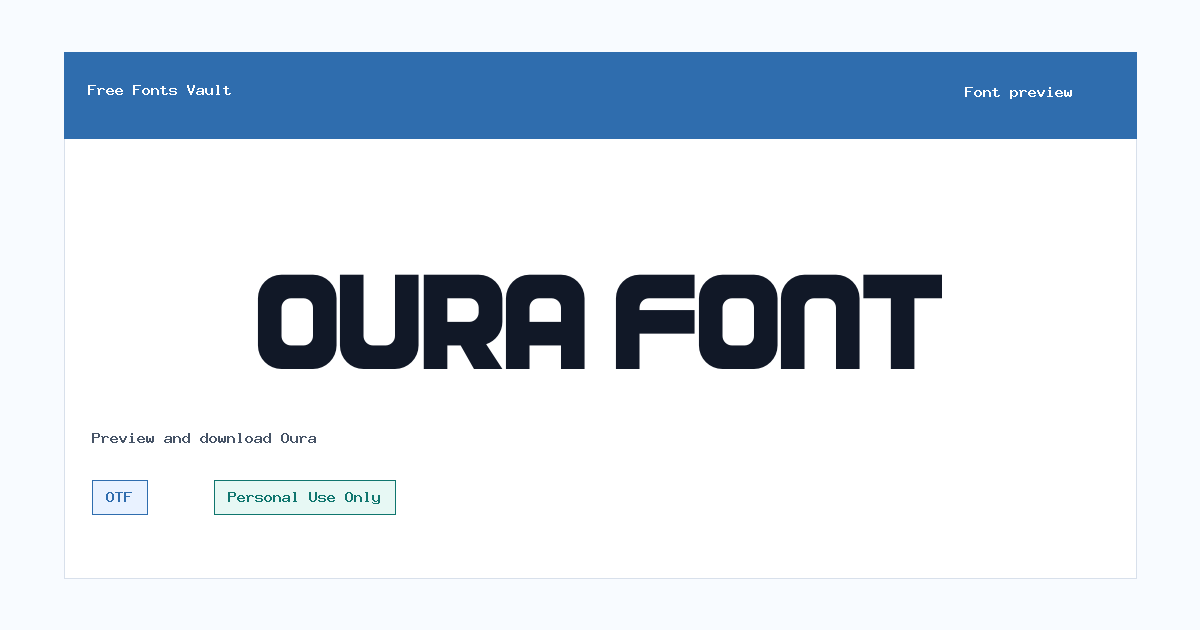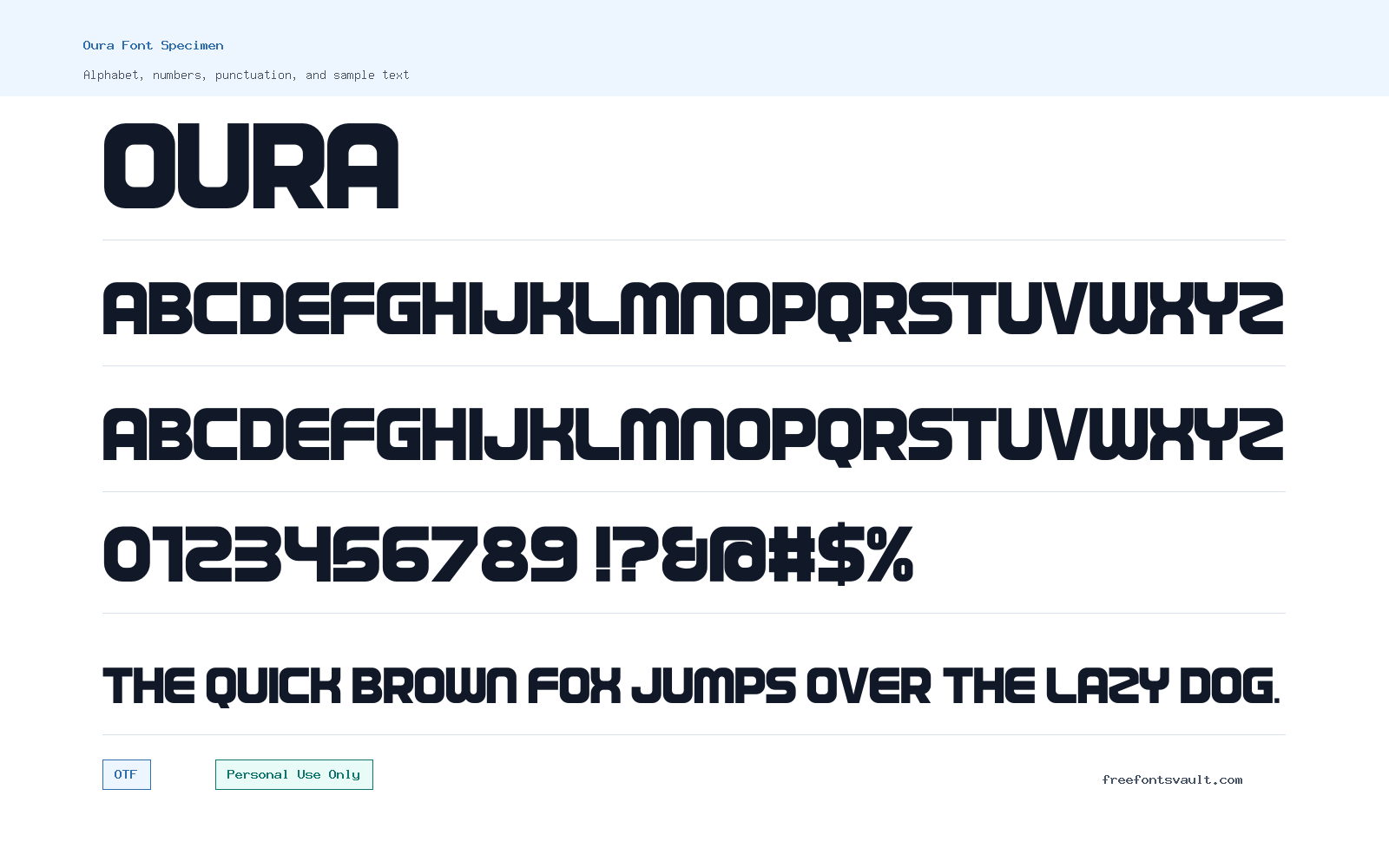
Oura
• Designer Lovian JK
• Foundry Funtype Co.
Oura is a sans serif font with a clean regular style, suitable for visitors who want to test a simple modern-looking typeface before downloading it.
About Oura Font
Oura comes as a regular-weight OTF font file. Its sans serif structure makes it a practical choice for short headings, name displays, poster text, social graphics, and other places where a clean letterform can stand out without extra decoration. Because only one regular style is listed, it is best treated as a focused display or supporting font rather than a full typography system with many weights.
Use the preview tool to test the exact words you plan to design with, especially if your project needs numbers, punctuation, uppercase styling, or longer lines of text. A single regular weight can work well for titles and short labels, but it may feel limited for body copy, dense paragraphs, app interfaces, or brand systems that need bold, italic, and multiple text sizes. Before downloading, check how the spacing feels in your own phrase and keep the license restriction in mind.
• Sans serif style suited to short, clean text settings
• Headlines, posters, social media graphics, and short display text
Oura is credited to designer Lovian JK and foundry Funtype Co.
Who designed Oura?
The font is credited to Lovian JK, with Funtype Co. listed as the foundry.
What is Oura best used for?
Oura is most useful for short text such as headings, simple posters, social graphics, and personal mockups. Test it carefully before using it for long paragraphs.
Does Oura include multiple weights?
Only one regular 400 style is listed, so there is no evidence of bold, italic, or extended weight options in this font entry.